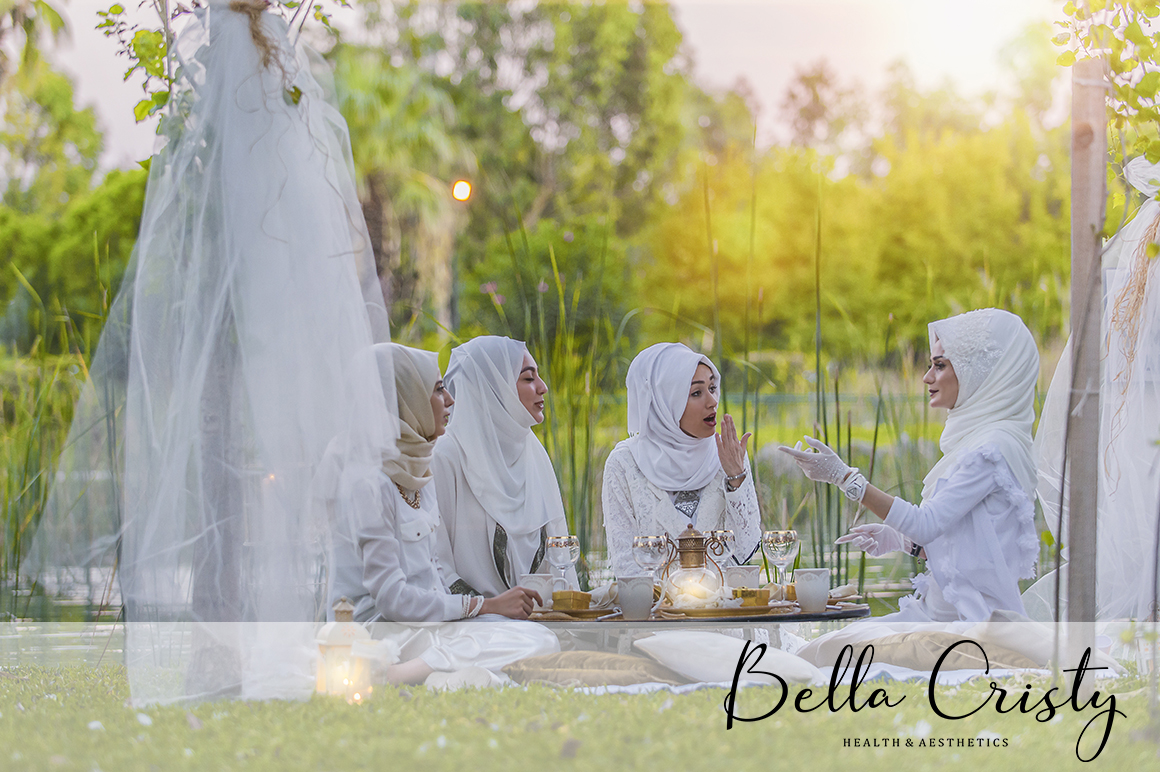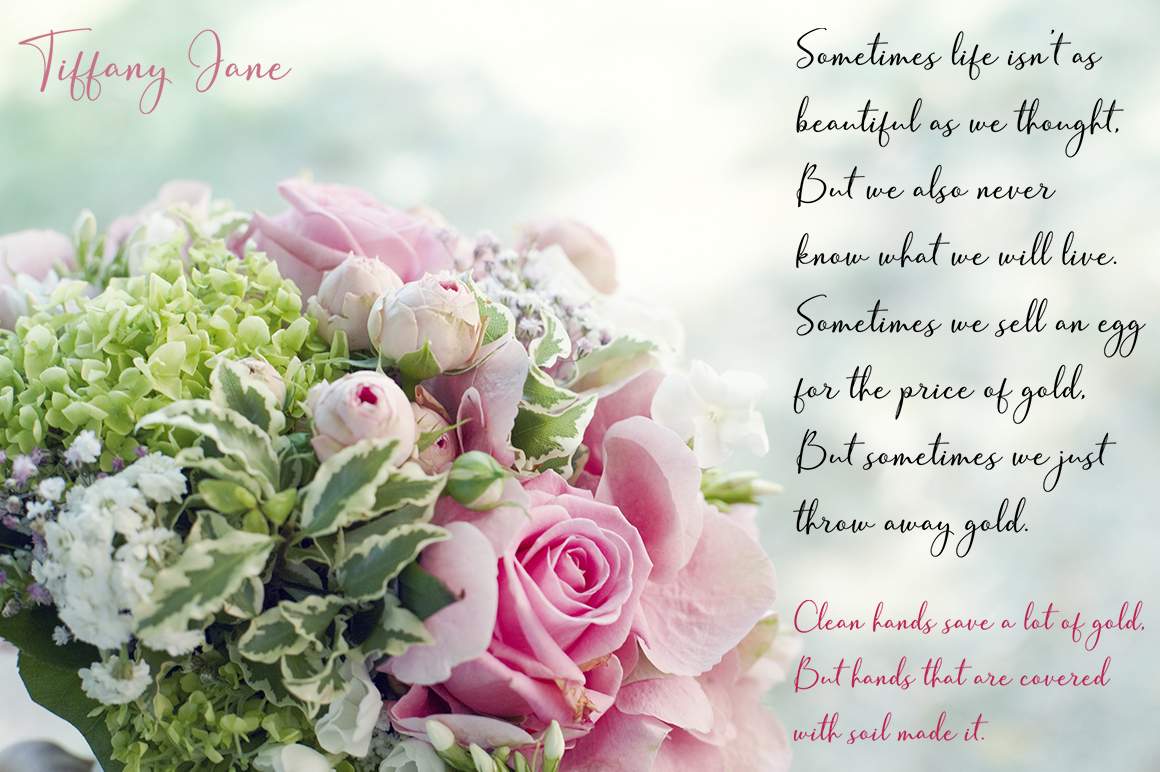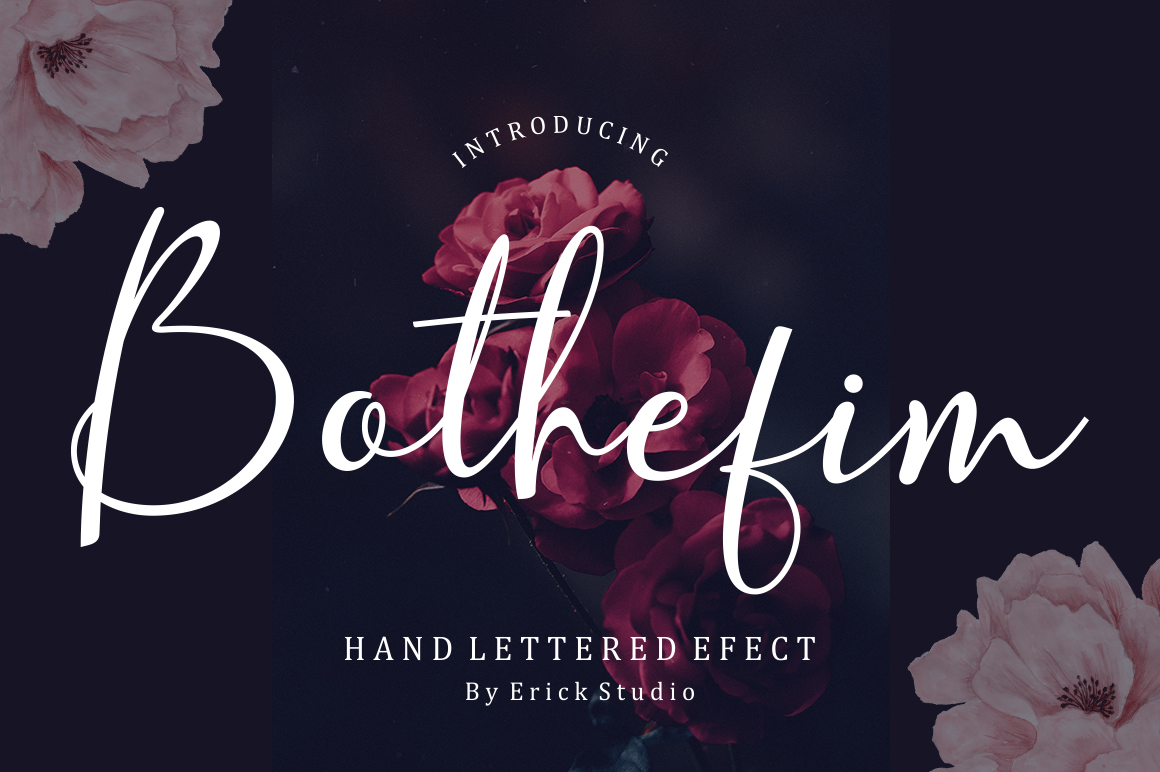
Bothefim Script Font
Bothefim is a script letter that has an original handwriting style, it will give a beautiful feel to your creation project.
This is very suitable for:
titles, signatures, Branding, logos, wedding invitations, t-shirts,-
letterhead, nameplate, labels, news, posters, etc.